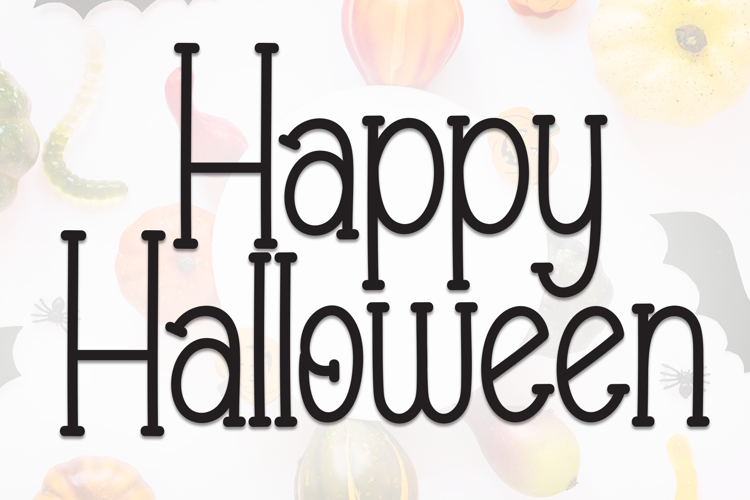
April Mop
Introducing, this is our newest product, we call this product April Mop,
It looks amazing with sweet touches and beautiful curves in each letter. April Mop fonts are perfect for: wedding invitations, fashion magazines, logos, signatures, photography, watermarks, wall displays, social media,